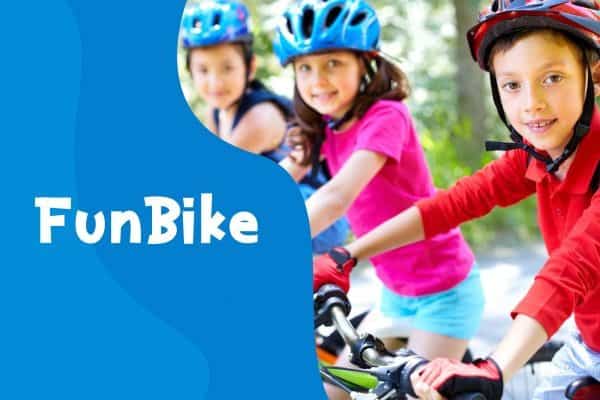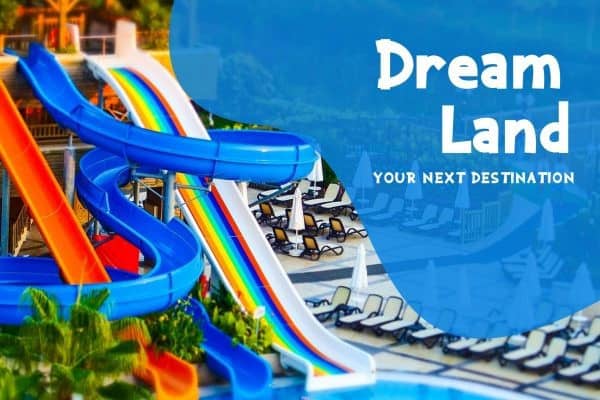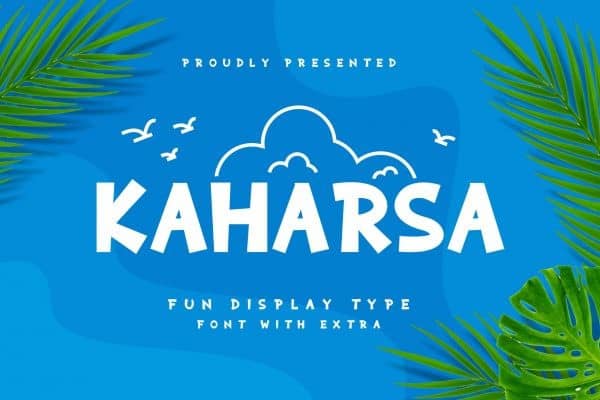
Kaharsa Display Font
Kaharsa Display Font which makes it great for any children’s design. It’s designed and shared by Rantautype. It’s a ‘crunchy’ comical sans serif, inspired by pop art style comic font. This special creative font is a fun that can be used for comics, manga, anime or any other design project. Good choice for both personal and commercial project purpose, for creating logo, packaging, posters, headers, wall arts, cafe banner, t-shirt design, advertisements, kids stuff, social media posts and much more!